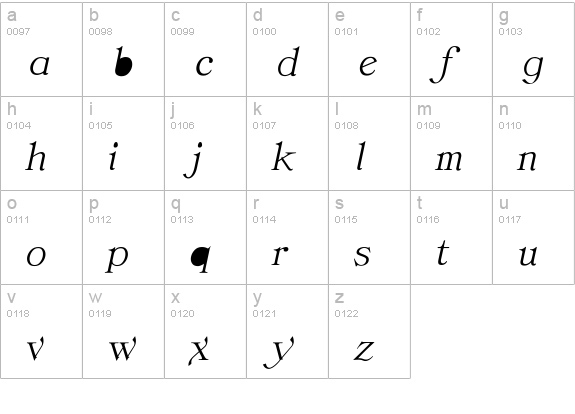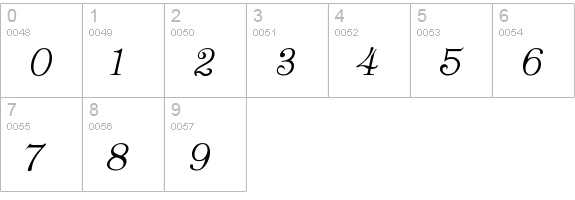
Cordella-Italic is a distinctive, italic variant in the Cordella typeface family \xE2\x80\x94 well suited to design and typography projects.
Cordella-Italic font is a sophisticated and elegant typeface that exudes a sense of grace and refinement. Its slanted, cursive style adds a touch of flair to any design project, making it perfect for creating invitations, branding materials, and more. The sleek curves and delicate lines of Cordella-Italic bring a sense of sophistication to any text, making it ideal for conveying a sense of elegance and style. What's even better is that Cordella-Italic font is available for free download at FontsMarket.com. This means you can easily access this beautiful typeface and incorporate it into your projects without breaking the bank. Whether you're a designer looking to elevate your work or someone who simply appreciates good typography, Cordella-Italic is a must-have addition to your font collection. Download it today and add a touch of elegance to your next design project!